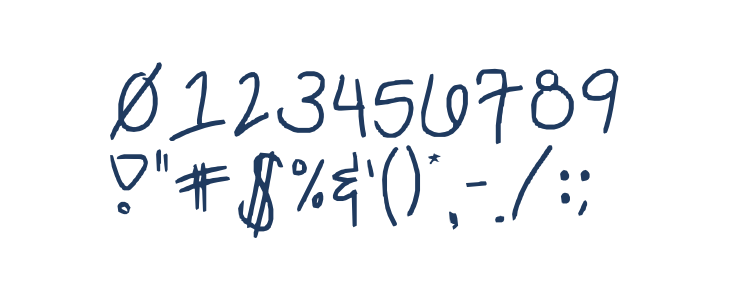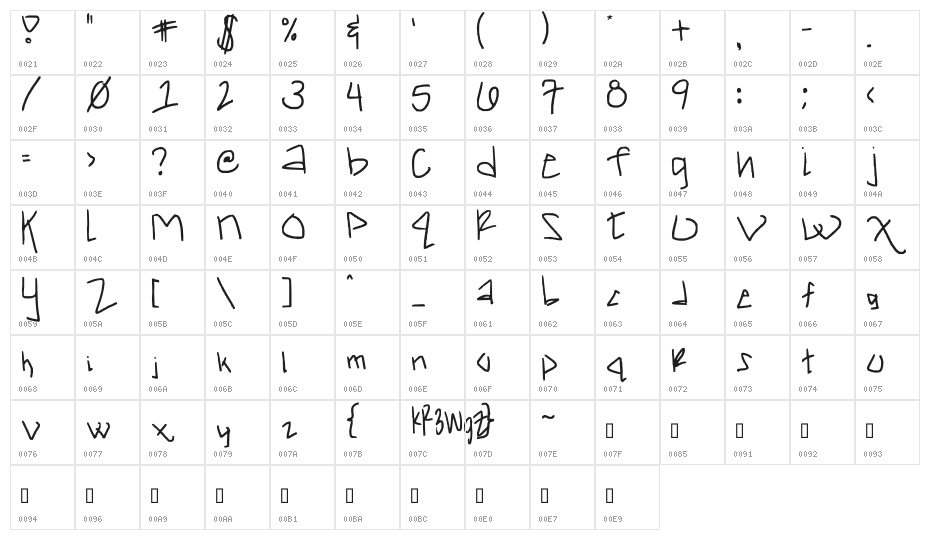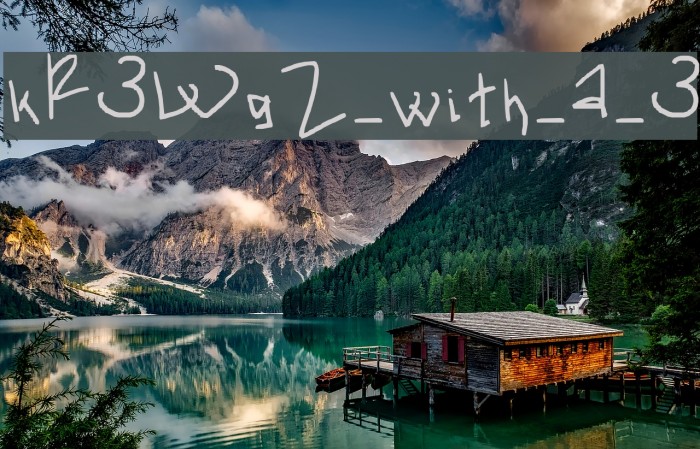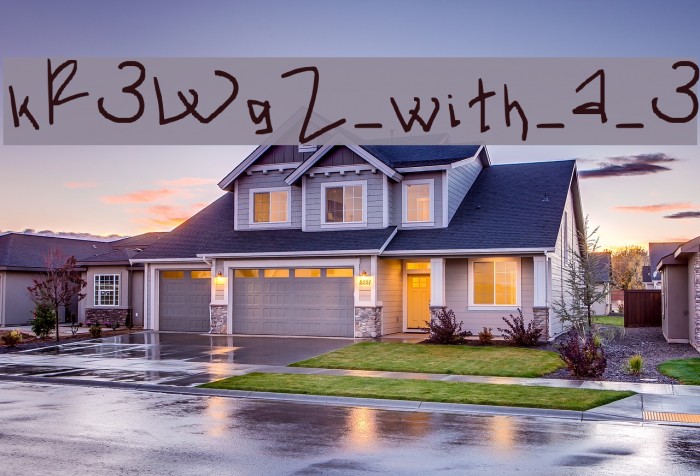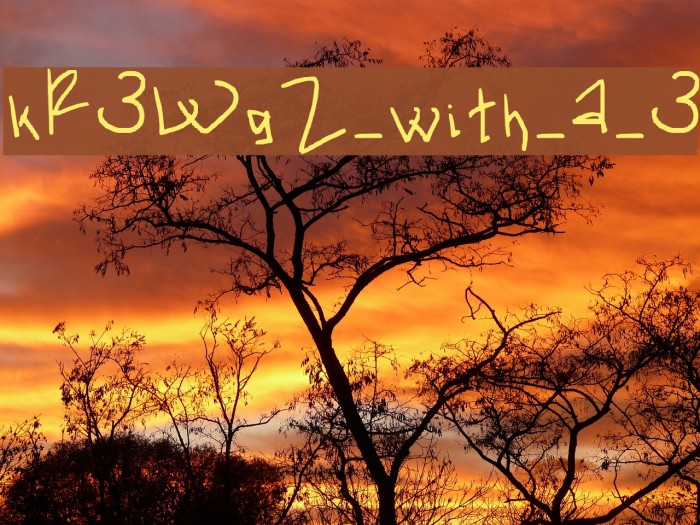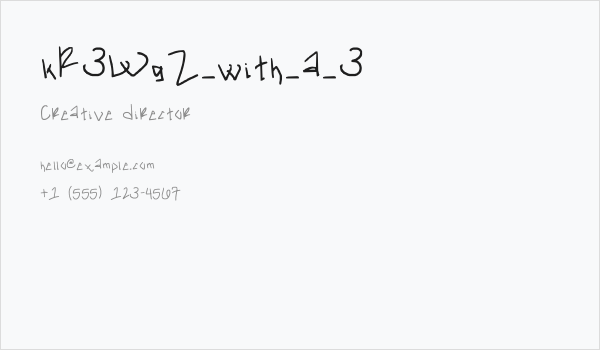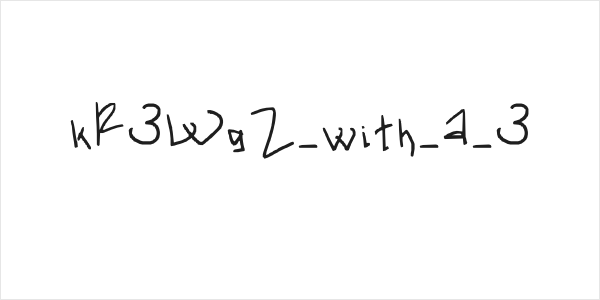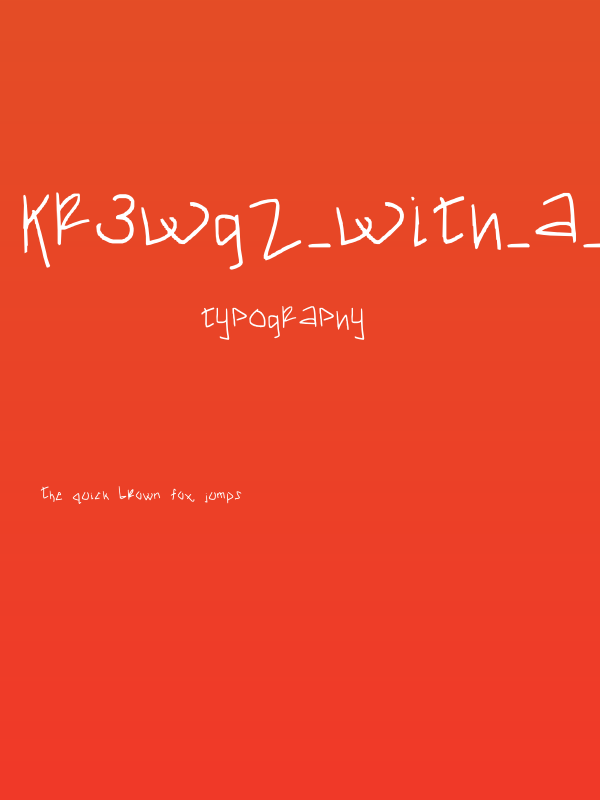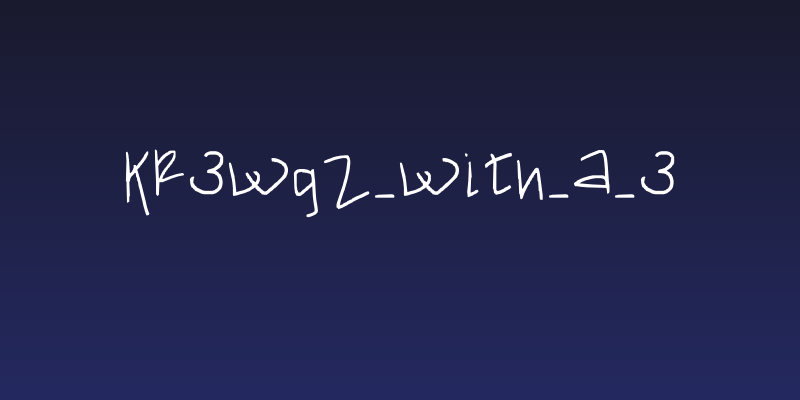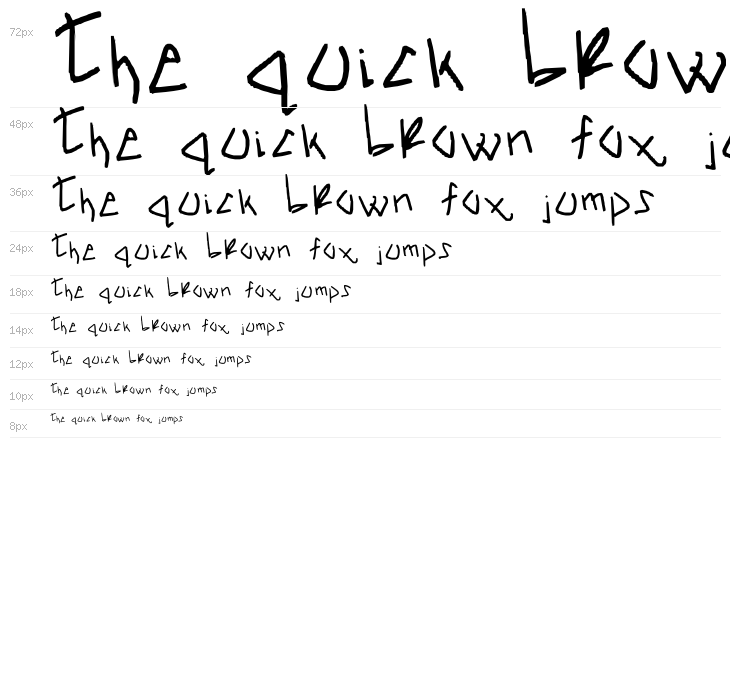
kR3WgZ_with_a_3 Font
kR3WgZ_with_a_3 Description
This font features a playful, handwritten style with irregular strokes and a casual, informal appearance. The characters are slightly tilted, giving them a dynamic and lively feel. The uppercase and lowercase letters are distinct, with some uppercase letters having a more pronounced angularity. The numbers and special characters maintain the same whimsical style, adding to the font's overall charm. The strokes are uneven, contributing to a sense of spontaneity and creativity. This font is perfect for projects that require a personal touch or a fun, approachable aesthetic.
| Use Case | Logos, Headlines, Informal Text |
| Proposed Projects | Ideal for greeting cards, children's books, casual branding, and creative posters. |